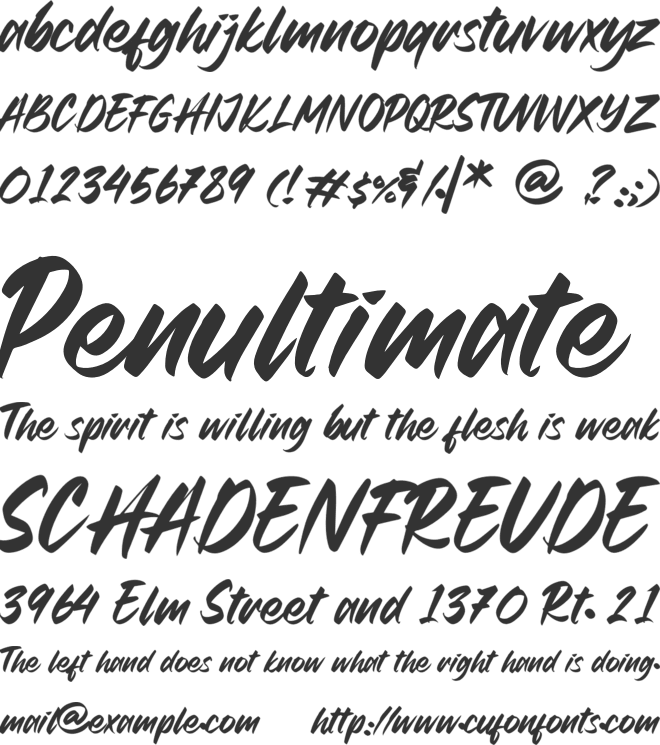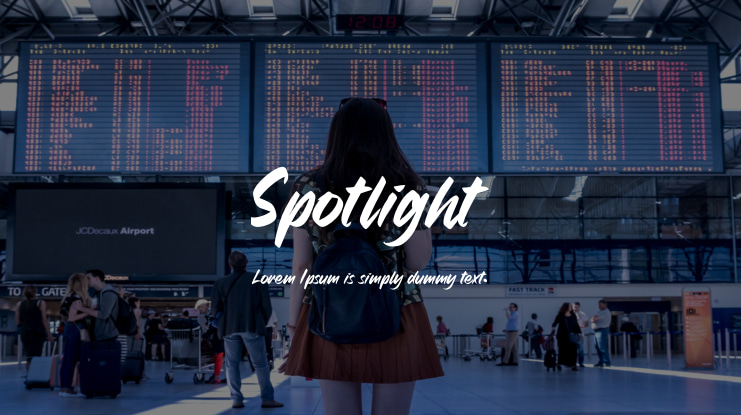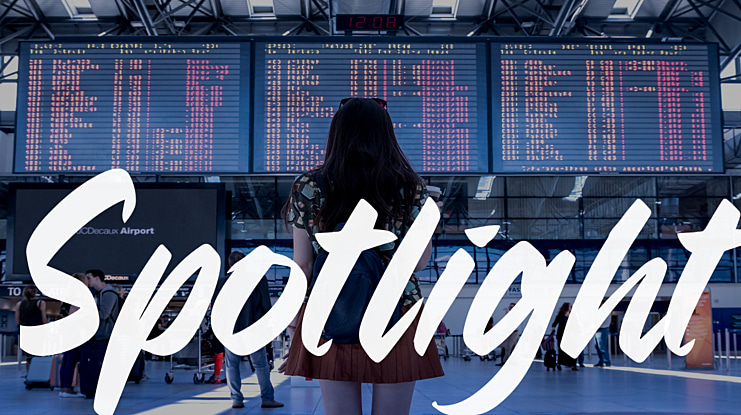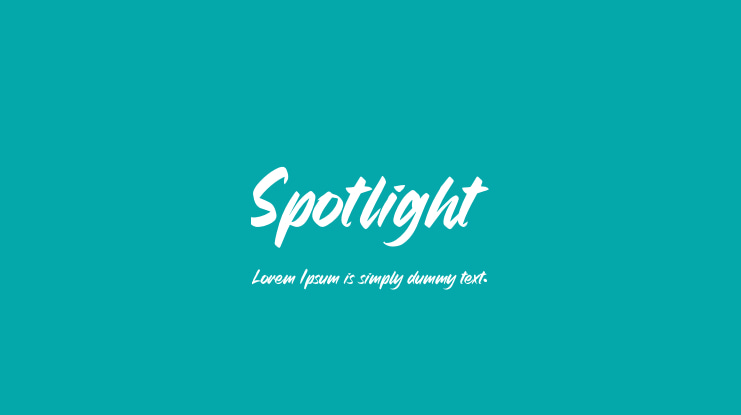
Spotlight Font
An eye-catching font for big display and taglines!. A good choice for Logo, company slogan, ads, social media post, story, working for both digital and print stuff. Try this font and make your design stand up!